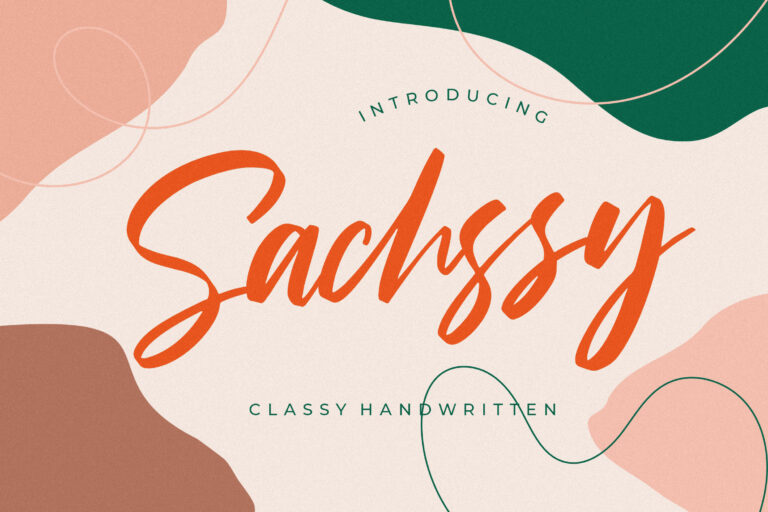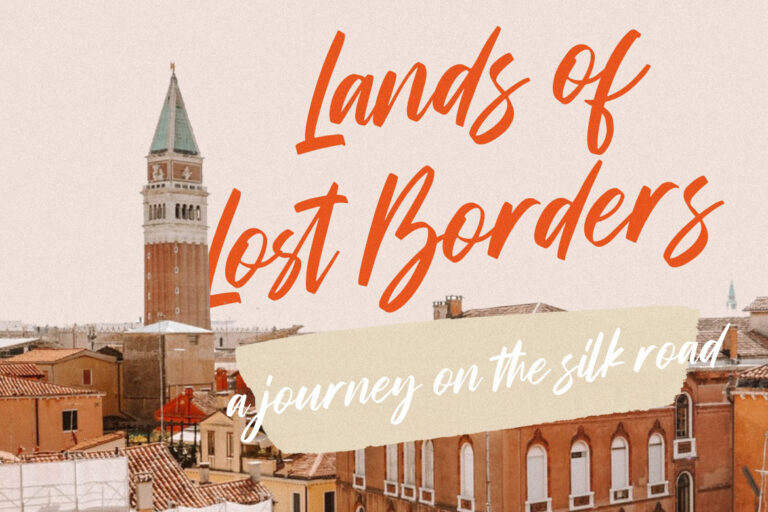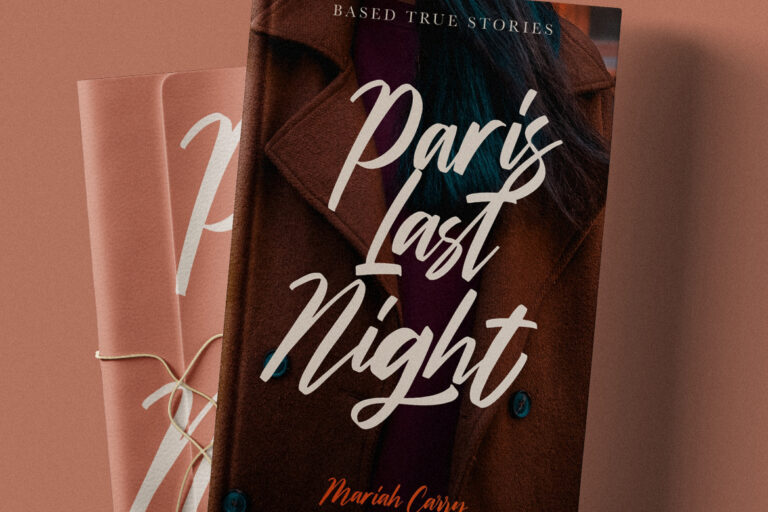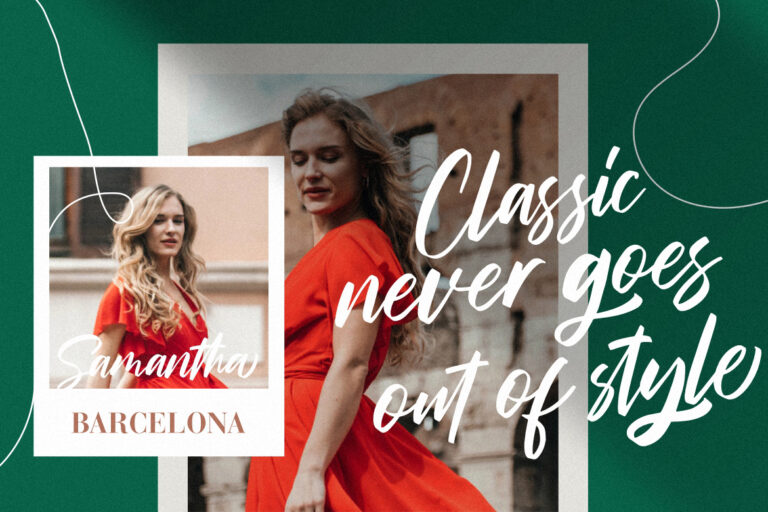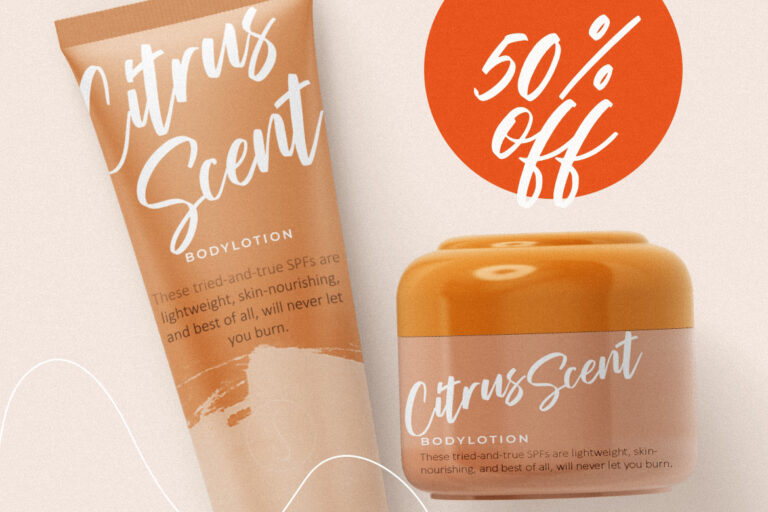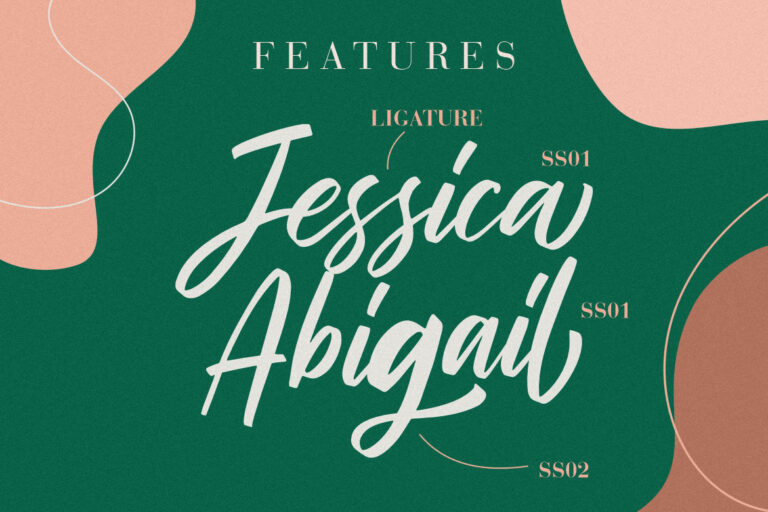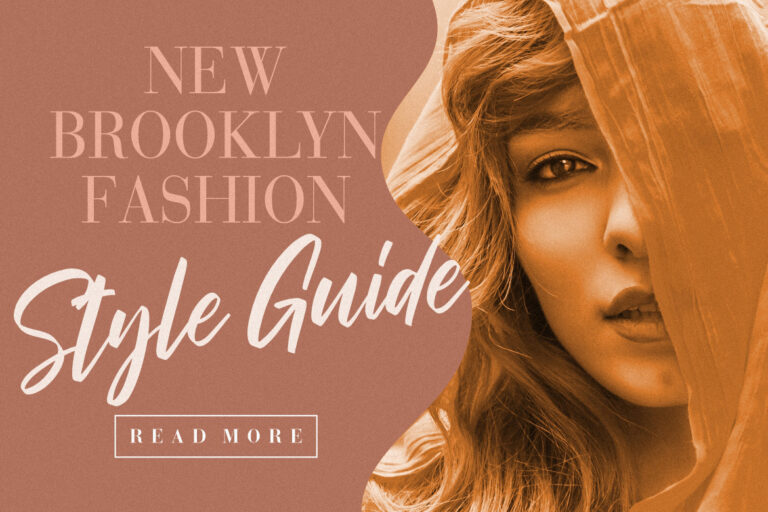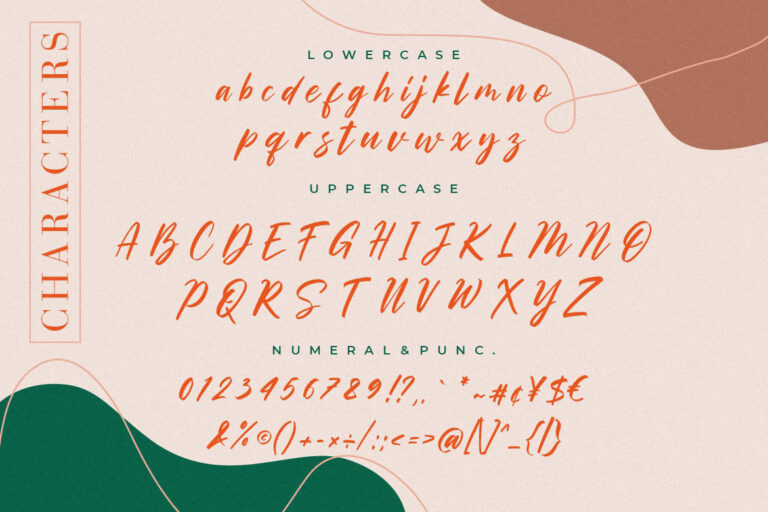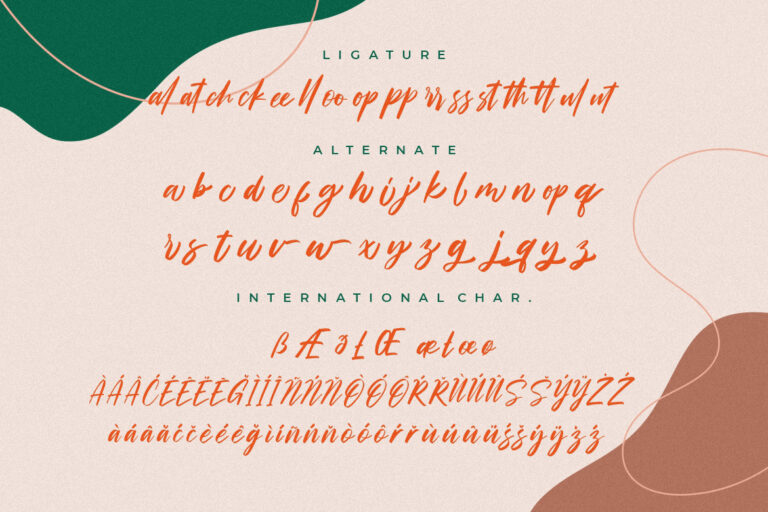
Sachssy a classy handwritten font with stylish brush modern and elegant.
Sachssy would perfect for photography, watermark, social media posts, advertisements, logos & branding, invitation, product designs, label, stationery, wedding designs, product packaging, special events or anything that need handwriting taste.
- Ligatur & Alternate
Sachssy Classy Handwritten